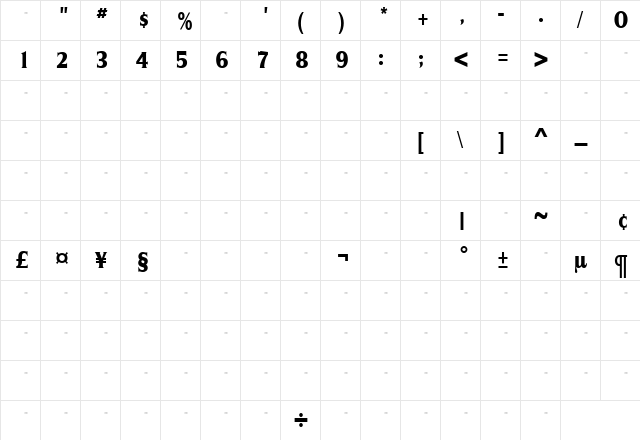
SilveradoExtraBoldCondensedTab Roman Font Preview
Design Context for SilveradoExtraBoldCondensedTab Typeface
SilveradoExtraBoldCondensedTab is a composed and adaptable typeface that performs quietly and consistently across a wide range of design contexts. The heavy weight commands attention and anchors typographic hierarchies. Its narrow stance lets it pack a punch even in space-constrained designs.